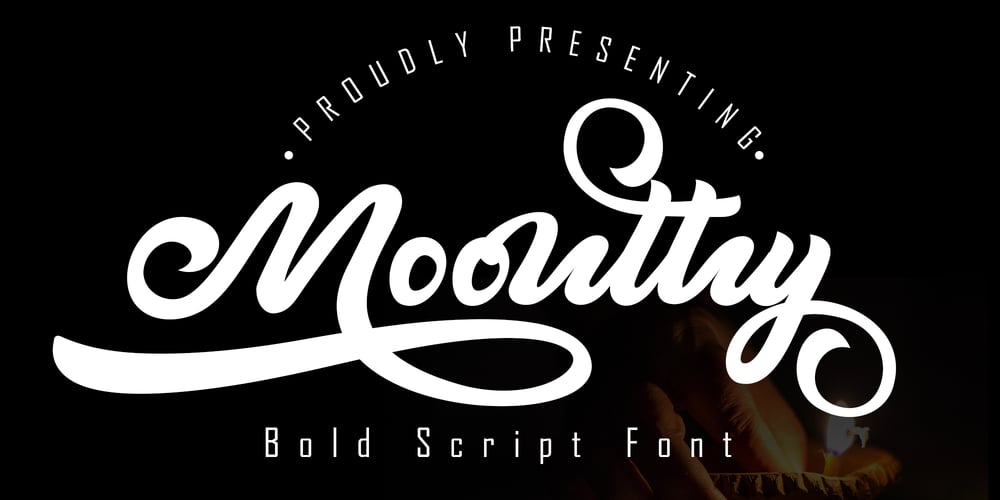
Moonthyu Font Family was designed by Irfan Mahmudin and published by Skiiller Studio. Moonthyu contains 1 styles and family package options. Moonthy is a beautiful type of script font, There are more than 150 alternate encoded PUAs suitable for graphic design and other needs What’s include:LigatureStylistic set for lowercaseStylistic set for EndingPUA Encoded Characters – Fully accessible without additional design software.Basic Latin Language Support (AÀÁÂÃÄÅCÇDÐEÈÉÊËIÌÍÎÏÑOØÒÓÔÕÖUÙÜÚÛWYÝŸÆß )How to access alternate glyphs? you can see it on this link ( http://goo.gl/1vy2fv )